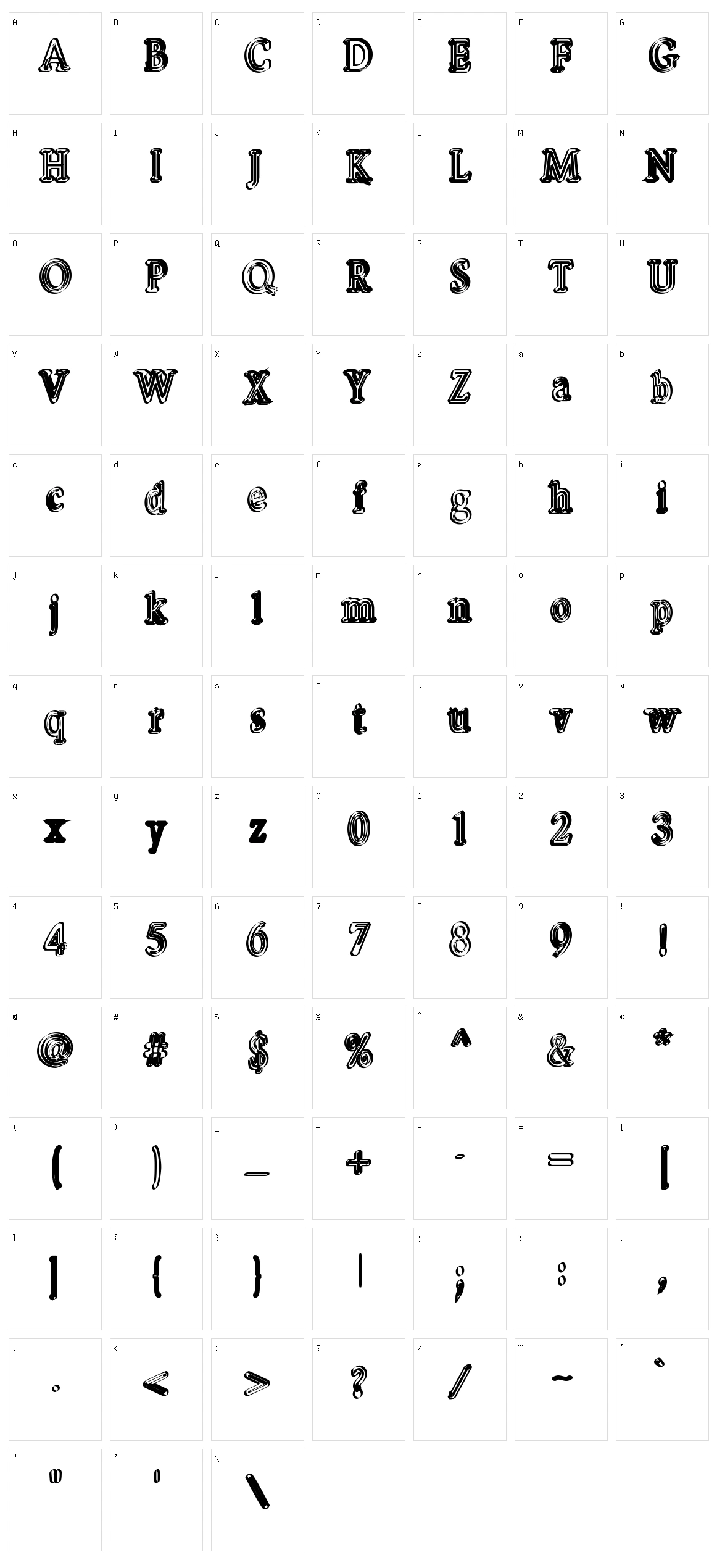
The free font Pastohombre is carefully designed by harrysdesign, showcasing a thoughtful balance of creativity and usability and falls under the Distorted font style. When you download the ZIP file, it contains only 261.33 KB of font files, making it lightweight and quick to download. Please review the license details below to understand permitted usage and distribution rights. If license information is not available, we recommend using this font for personal projects only or contacting the author directly for commercial usage permissions.